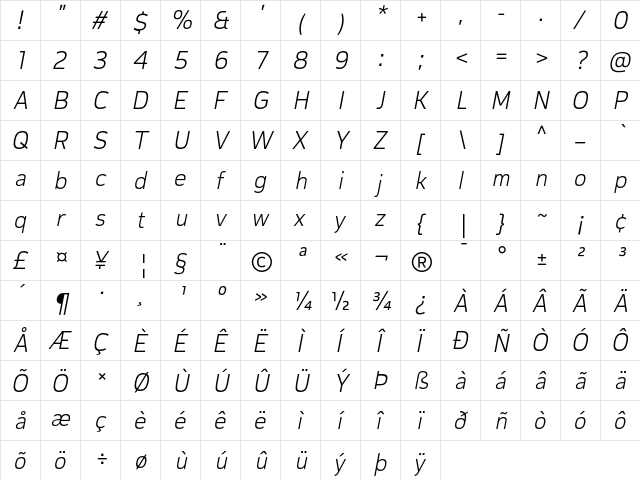
Corp Trial LtObl Italic
| Designer | Eko Bimantara |
Design Context for Corp Trial LtObl Typeface
Corp Trial LtObl takes a measured approach to typography — its balanced proportions and neutral character make it a reliable workhorse for both digital and print work. The dynamic lean of this cut emphasises speed and emphasis in any layout.
Pro Tip: Try Corp Trial LtObl for annotation and caption copy alongside an upright companion — the contrast in angle creates a dynamic but ordered typographic system.